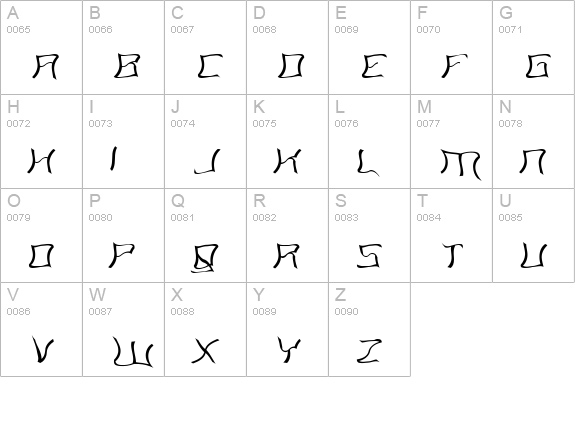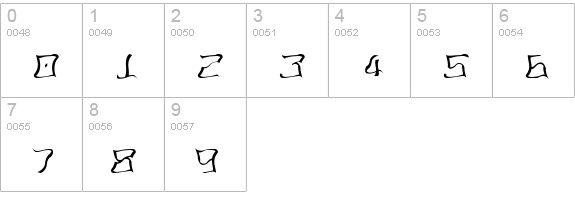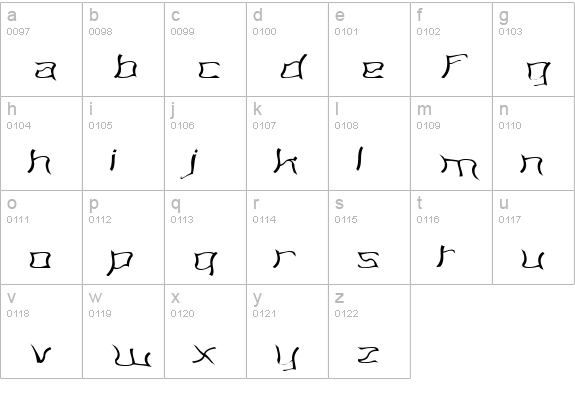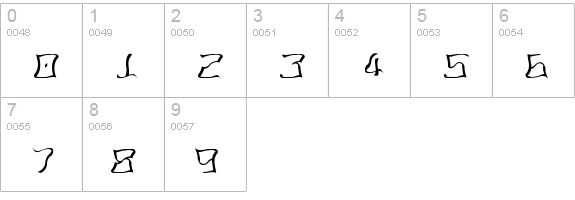
Martians spacewarped my dad Font Details
Introducing the extraordinary Martians Spacewarped My Dad font, a captivating typeface that will transport you to a whole new dimension of creativity. This font is the perfect blend of futuristic design and boldness, making it a must-have for any out-of-this-world project. Martians Spacewarped My Dad font features intricate lines and symmetrical curves that mimic the mysterious essence of the cosmos. Its unique and otherworldly appearance will add a touch of avant-garde style to your designs, captivating the attention of viewers and leaving them in awe. One of the most remarkable features of Martians Spacewarped My Dad font is its versatility. Whether you're working on a sci-fi movie poster, a futuristic branding project, or a captivating book cover, this font will effortlessly elevate your design to new heights. Its legibility and eye-catching presence make it suitable for both display purposes and smaller text sizes, ensuring that your message is delivered with impact and clarity. But what sets Martians Spacewarped My Dad font apart from the rest is that it is absolutely free! Yes, you read that right. This extraordinary font is freely available to download at FontsMarket.com, allowing you to unleash your creativity without any constraints or limitations. Embrace the freedom of expression and let your imagination run wild with this captivating typeface. So why wait? Download Martians Spacewarped My Dad font today and embark on a cosmic journey of design possibilities. Let this font be your guide as you explore new frontiers and create captivating visuals that leave a lasting impression. With its stunning aesthetics and the freedom it offers, this font is a true gem in the universe of typography. Don't miss out on this incredible opportunity to enhance your designs and captivate your audience.